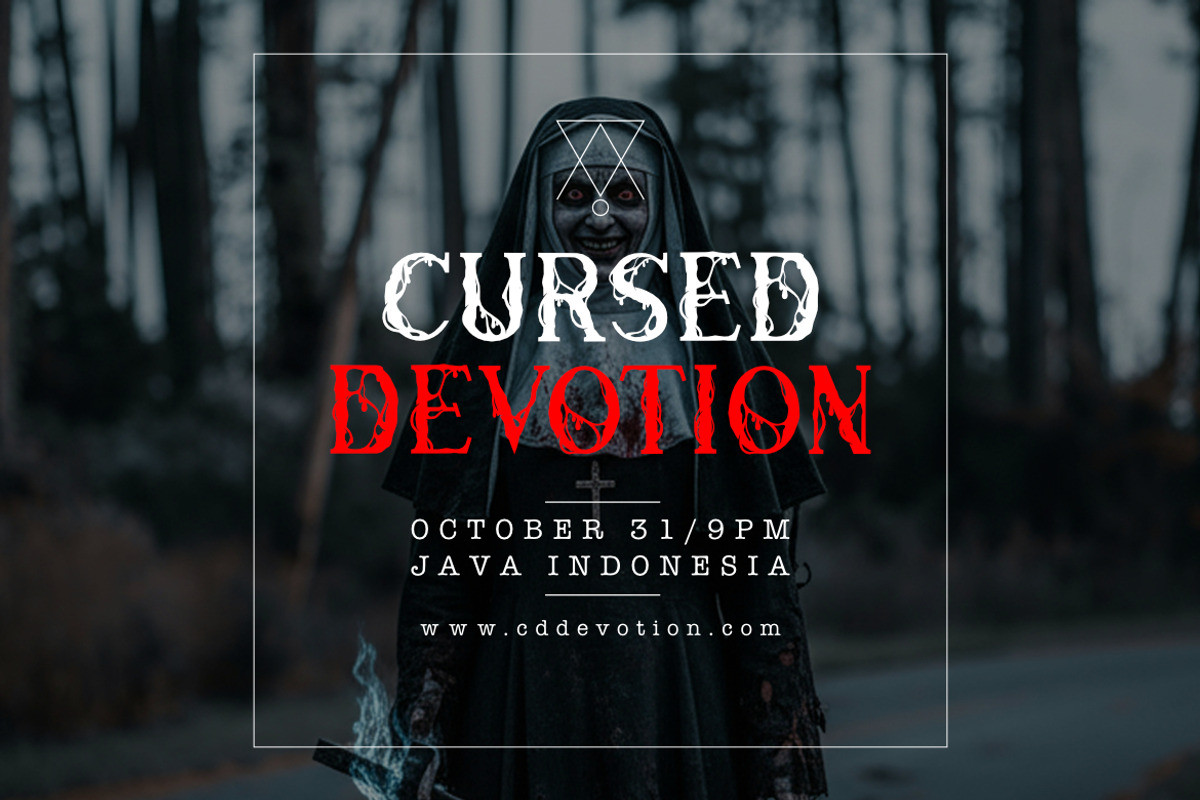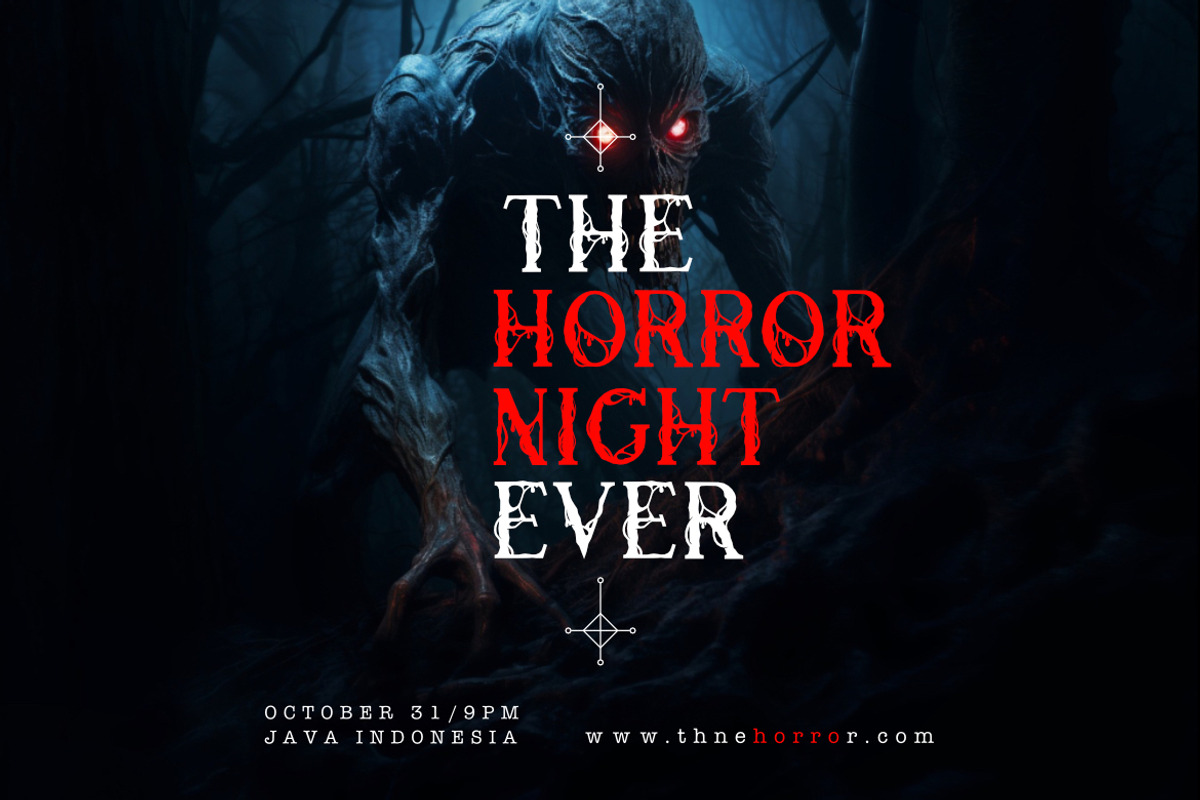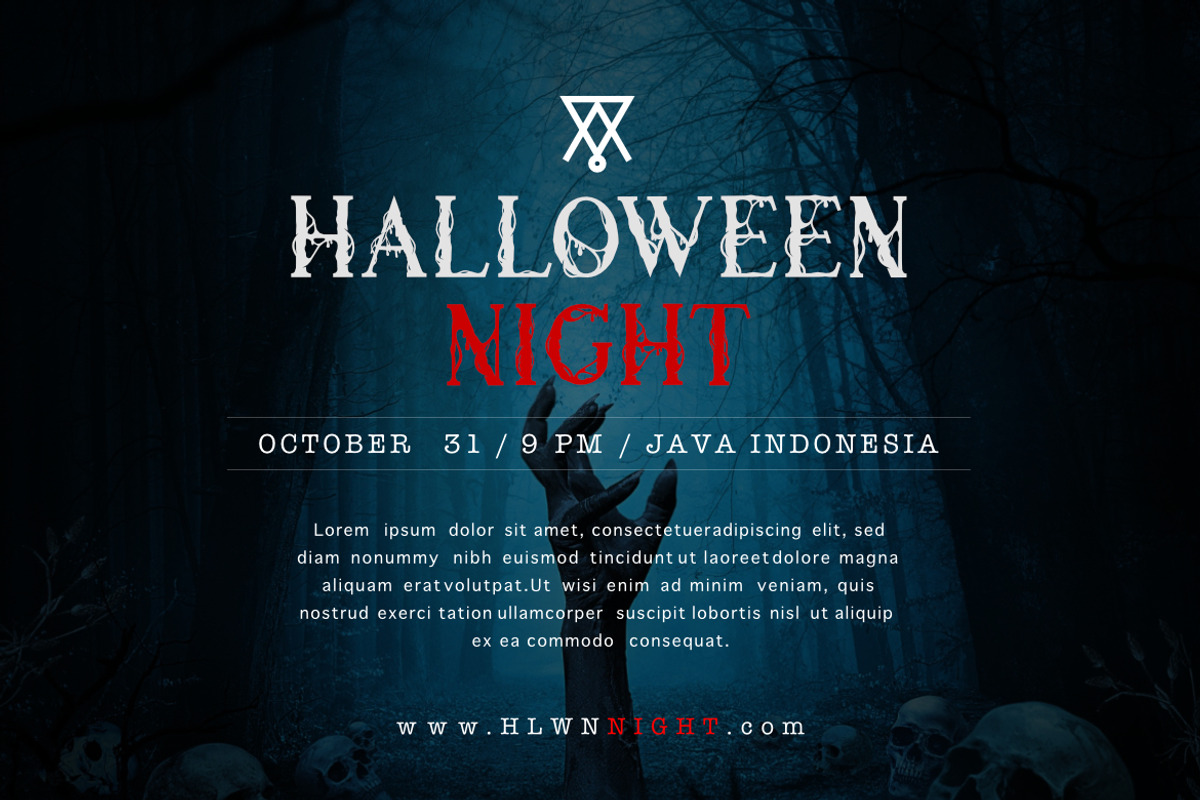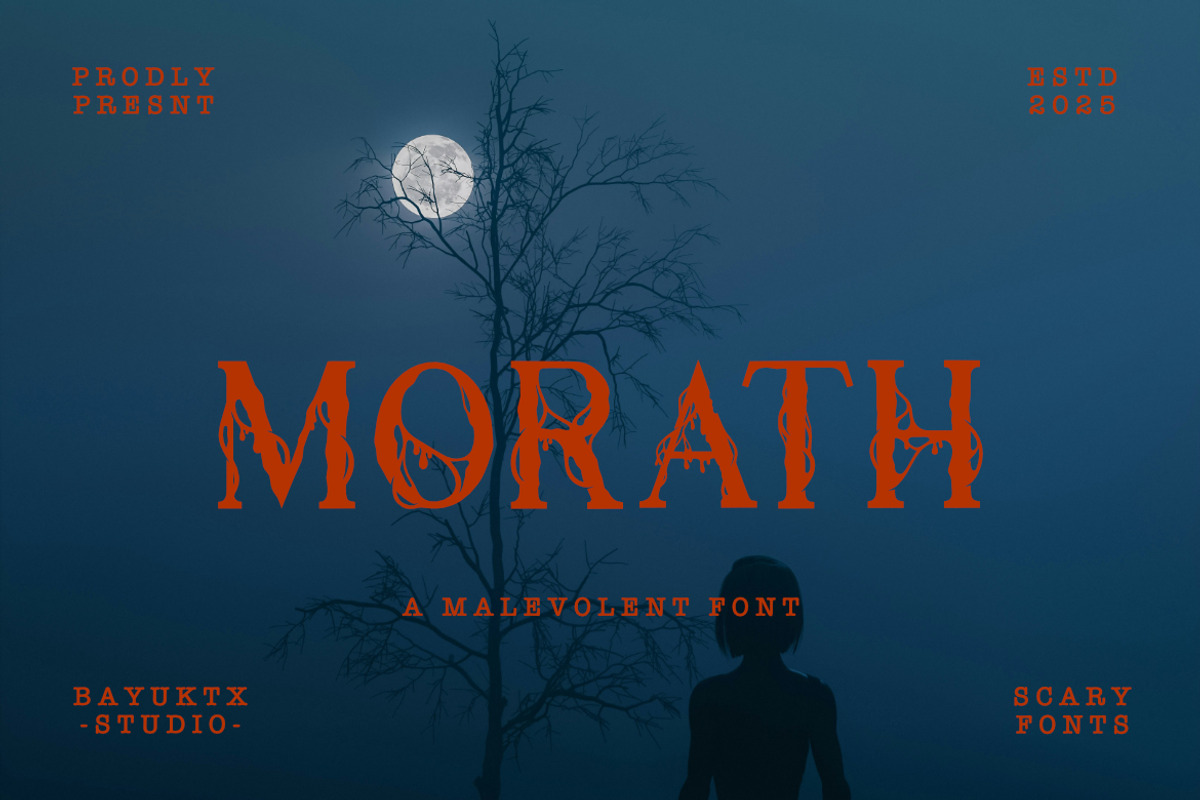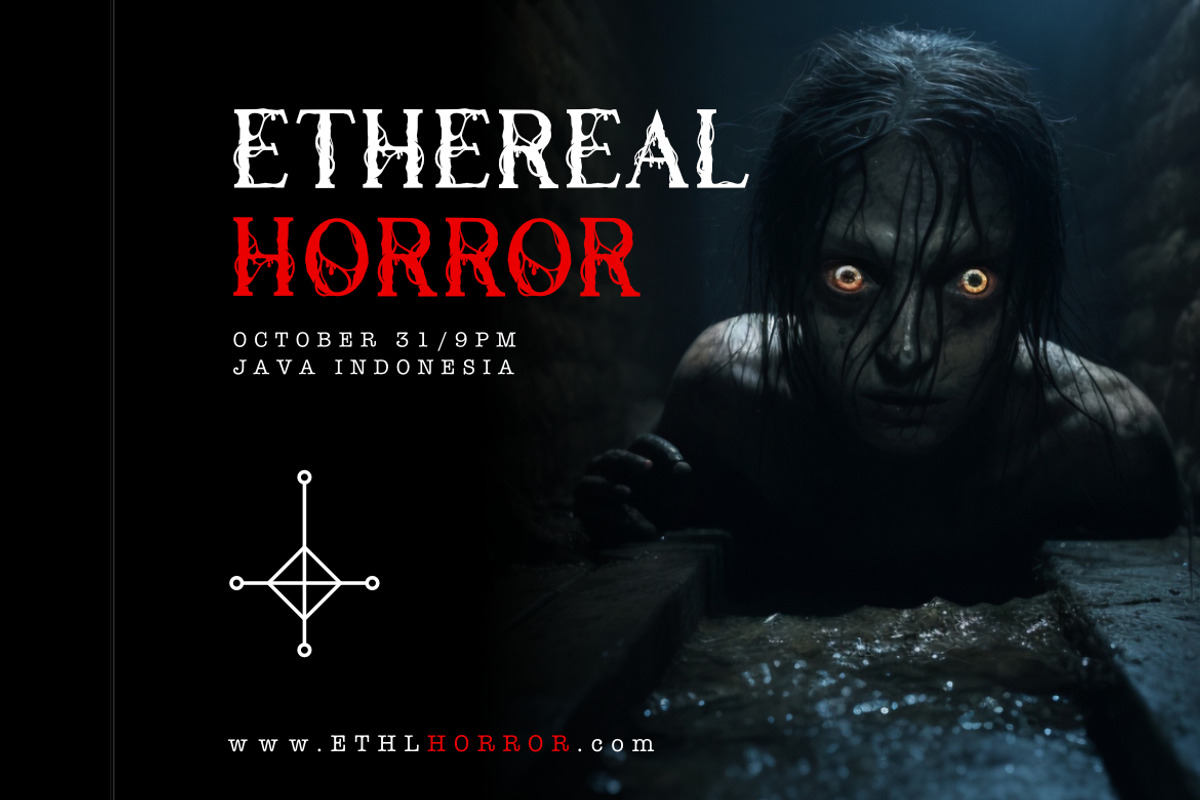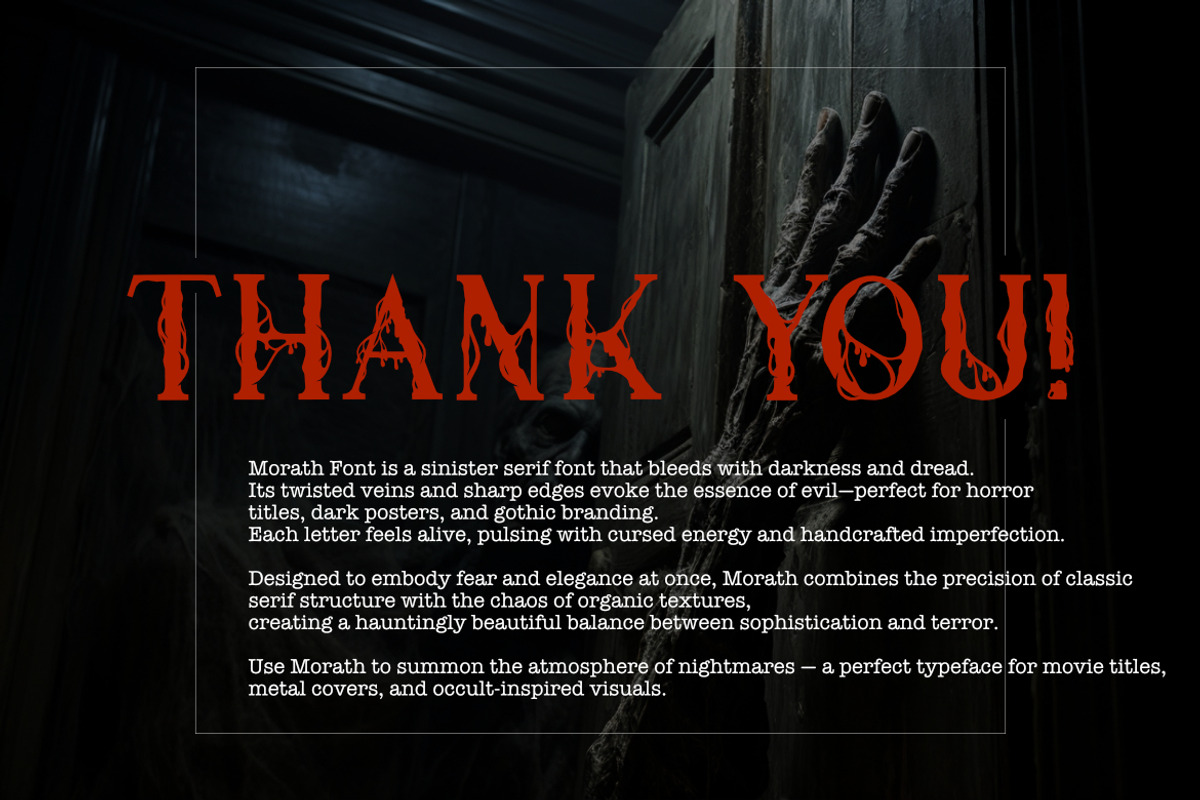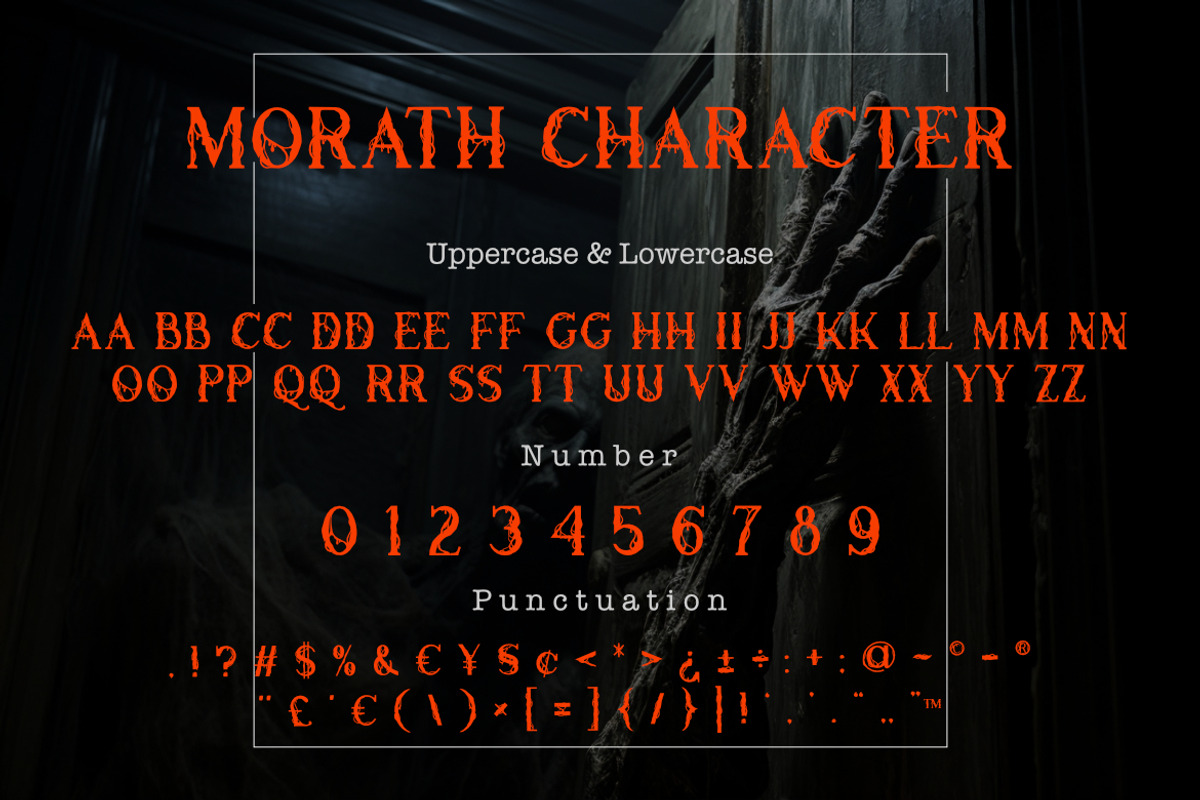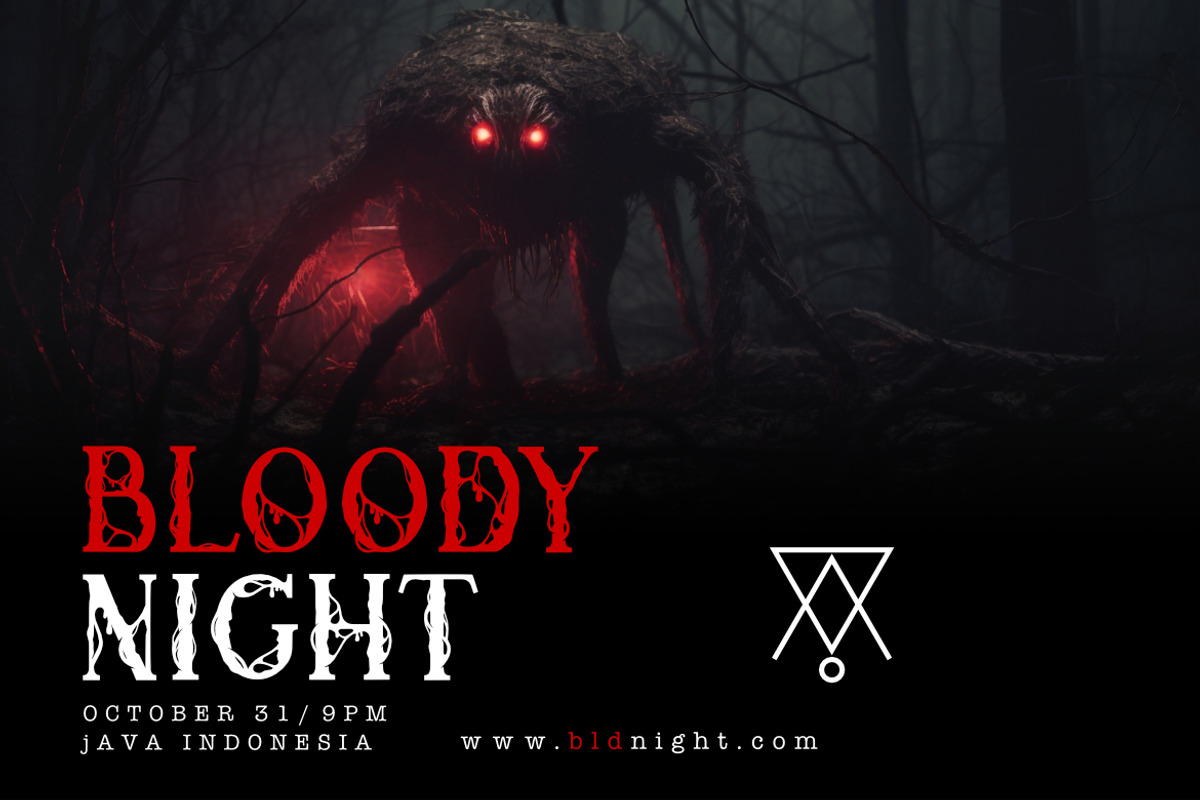
Morath a Malevolent Serif Font
Morath is a dark and sinister serif typeface that bleeds with character. Its twisted veins and dripping details create a haunting yet elegant appearance, blending gothic artistry with refined serif structure. Inspired by horror movie titles and cursed manuscripts, Morath delivers an atmosphere of fear, mystery, and power in every letter.
The sharp edges and organic vein-like textures give this font a uniquely malevolent personality — perfect for horror posters, dark branding, metal album covers, or Halloween-themed projects that demand intensity and visual drama.
Suitable For :
- Horror Posters & Movie Titles
- Dark Branding & Packaging
- Gothic Fashion & Merchandise
- Halloween Invitations & Quotes
- Game or Music Artwork
With Morath a Malevolent Serif Font, every word drips with tension and elegance, turning ordinary text into a statement of darkness and design mastery.